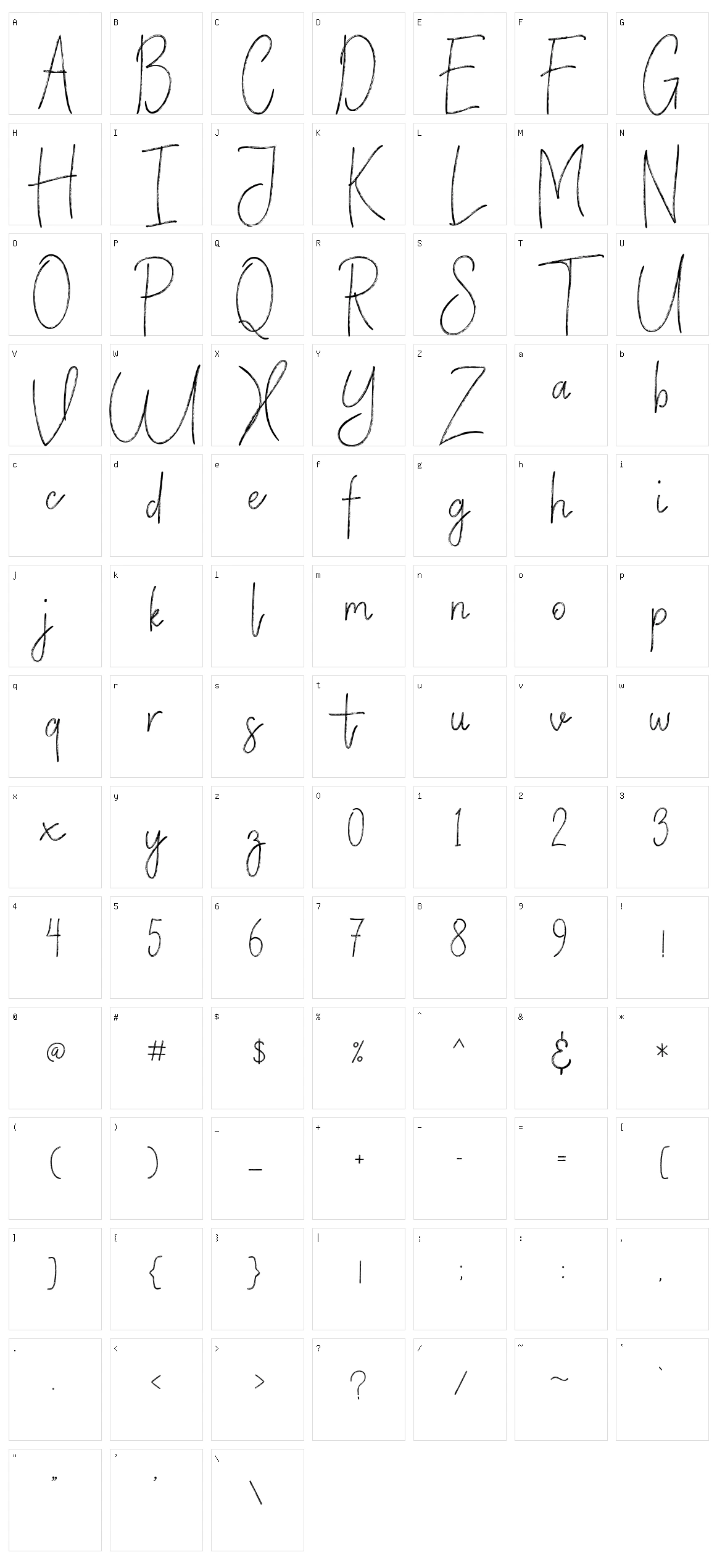
Vertical Brushy
Description: The free font Vertical Brushy is carefully designed by FHFont, showcasing a thoughtful balance of creativity and usability and falls under the Script font style. When you download the ZIP file, it contains only 2853.64 KB of font files, making it lightweight and quick to download. Please review the license details below to understand permitted usage and distribution rights. If license information is not available, we recommend using this font for personal projects only or contacting the author directly for commercial usage permissions.